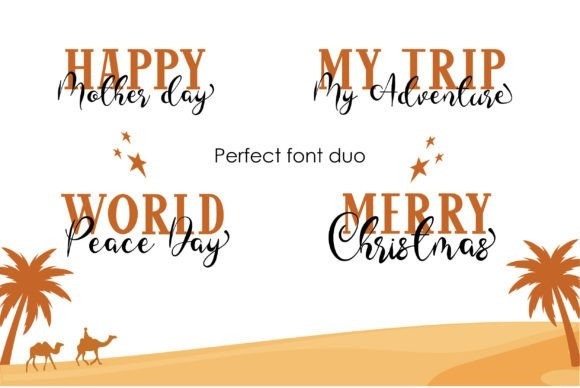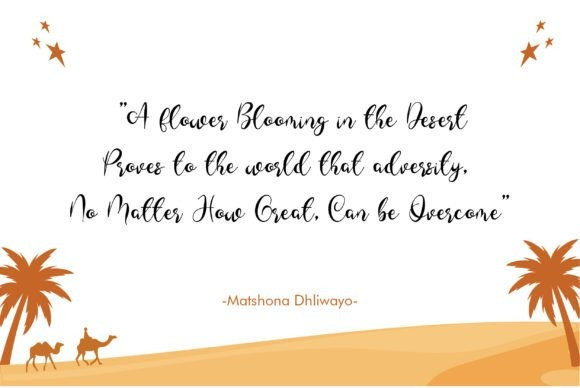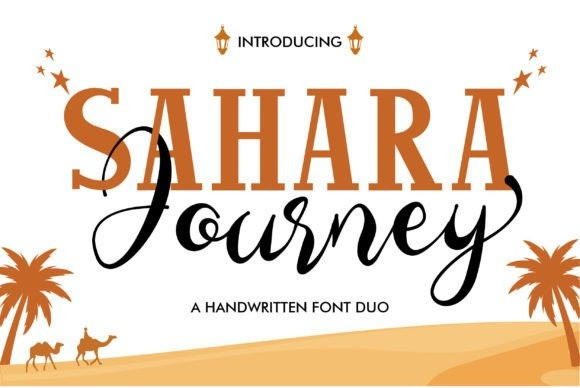
Sahara Journey Font Duo
Sahara Journey Font Duo, is a beautiful and cute font duo with two styles – a monoline script and a serif look. This font is inspired by the beauty of Sahara Travel, which makes it perfect for summer, or products related to children. This font will brighten up any of your designs.
Sahara journey is PUA coded which means you can access all glyphs and swashes easily!